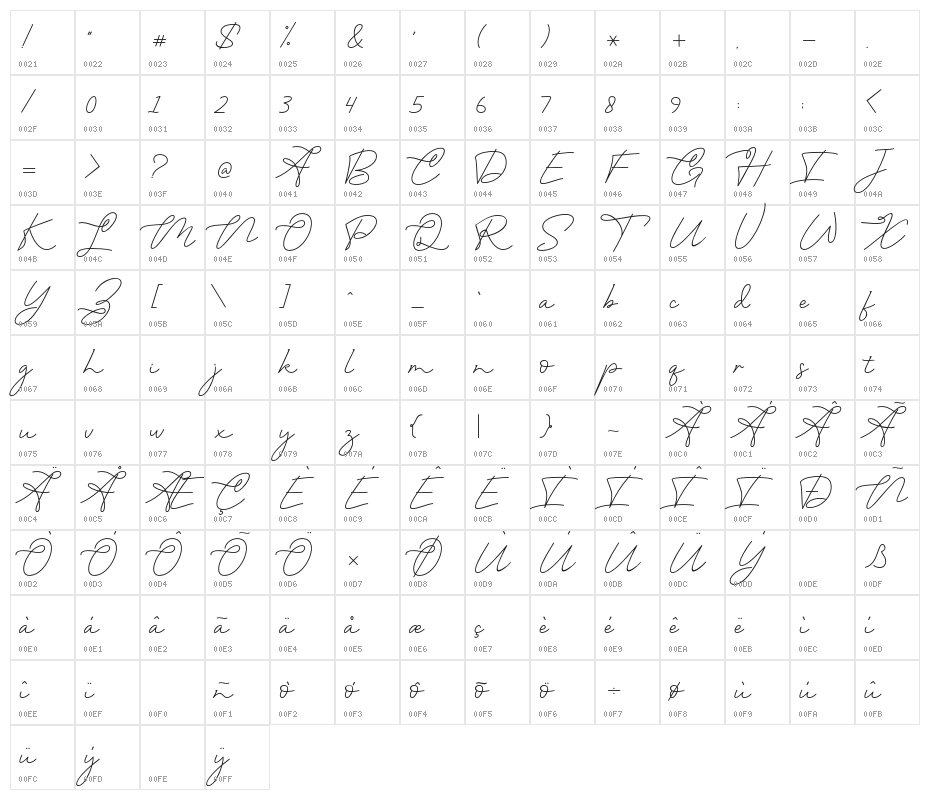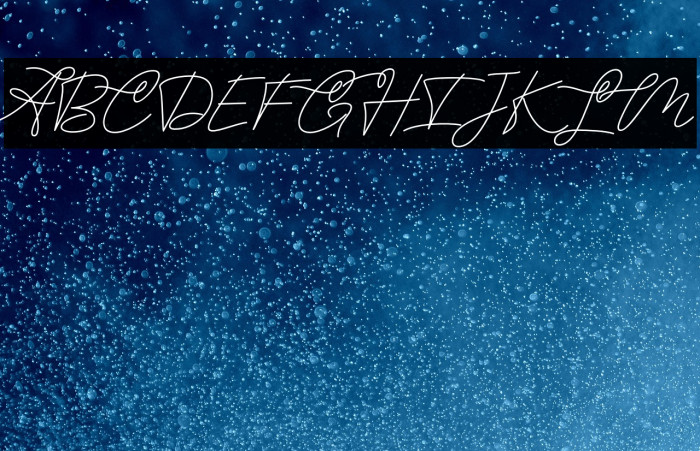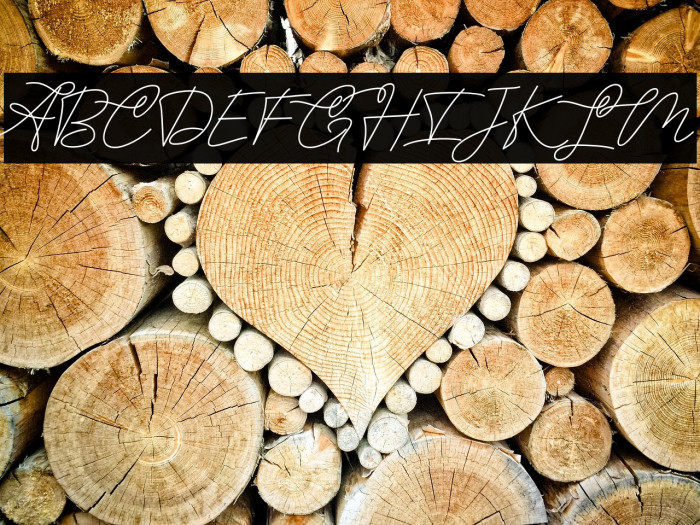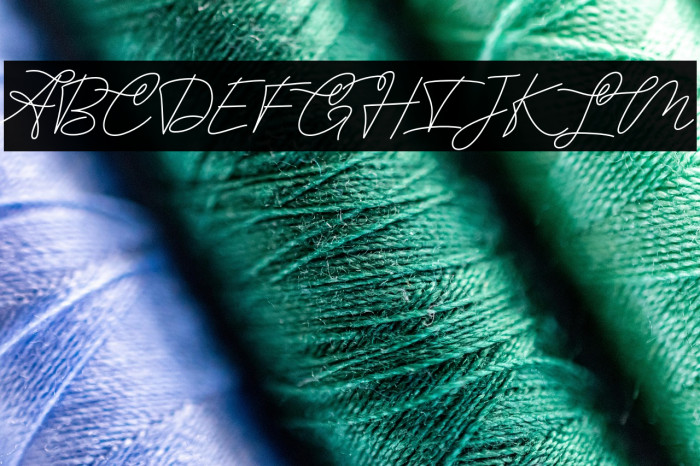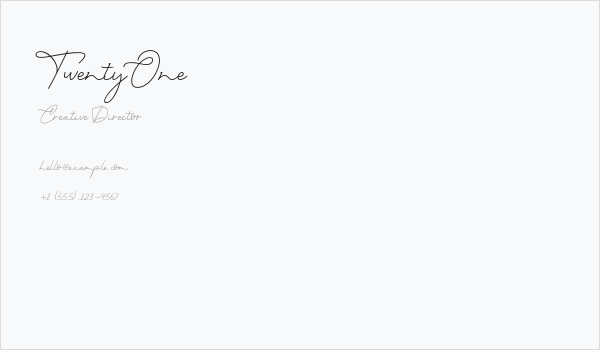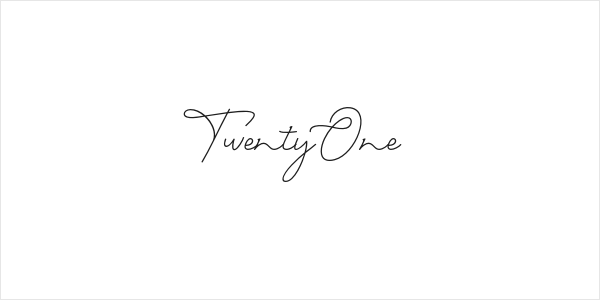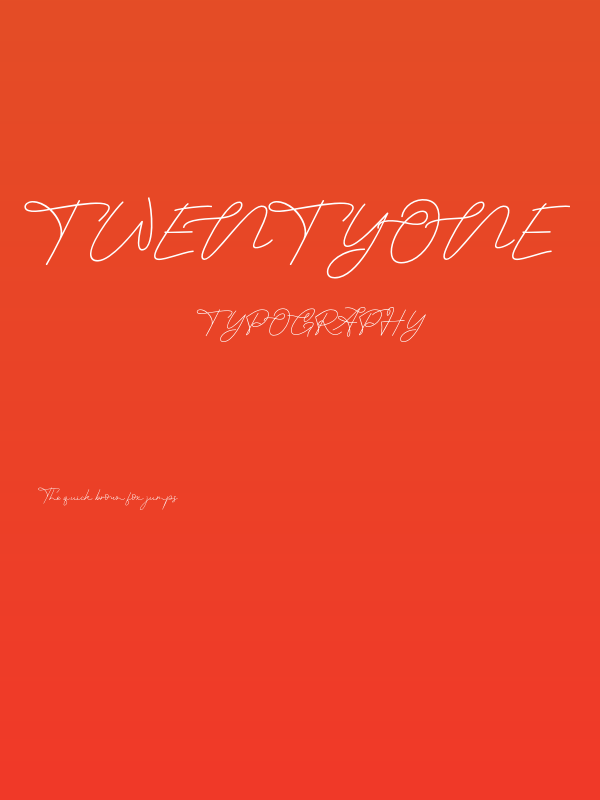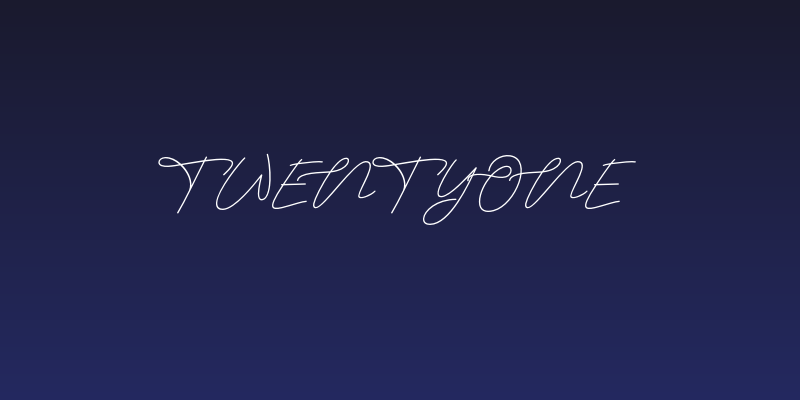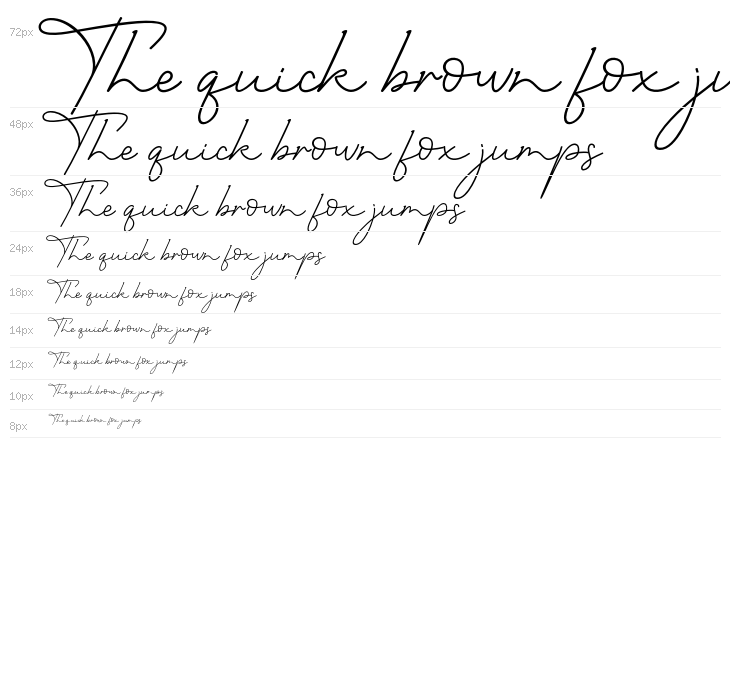
TwentyOne Font
TwentyOne Description
This font features a flowing, cursive style that mimics elegant handwriting. The uppercase letters are gracefully connected, with each character exhibiting a smooth, continuous stroke. The lowercase letters maintain a consistent flow, enhancing the handwritten aesthetic. The numerals are clear and legible, complementing the overall script style. Special characters are designed to match the fluidity of the alphabet, ensuring a cohesive look across all text elements. This font exudes a sense of sophistication and personal touch, making it ideal for projects that require a personal or artistic flair.
| Overall Style | Elegant, Handwritten |
| Use Case | Logos, Invitations, Personal notes |
| Proposed Projects | Ideal for wedding invitations, personal branding, greeting cards, and artistic projects. |